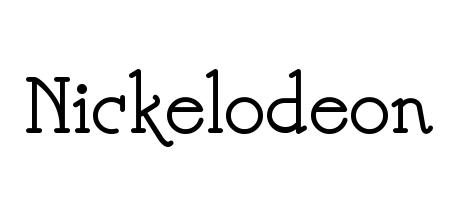
Nickelodeon
Nickelodeon: A classic serif typeface, possibly reminiscent of a slightly condensed Times New Roman. Its clean lines and consistent stroke weight lend it a timeless, straightforward quality, suggesting reliability and approachability. The even spacing between letters contributes to its readability. It feels both familiar and subtly elegant.